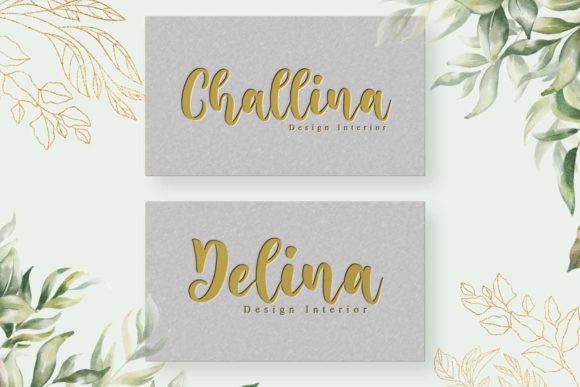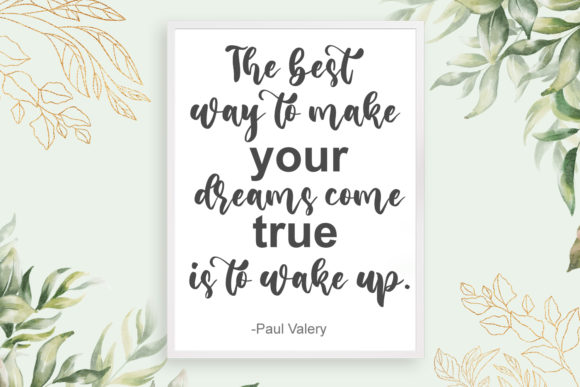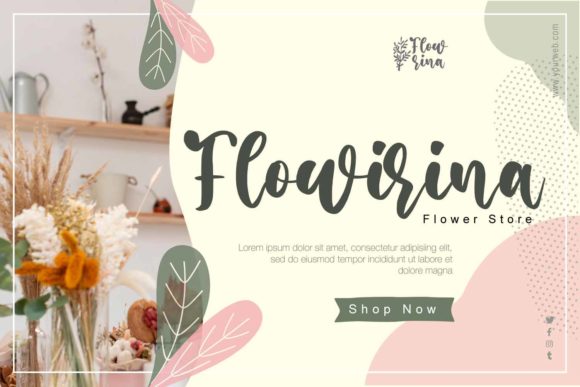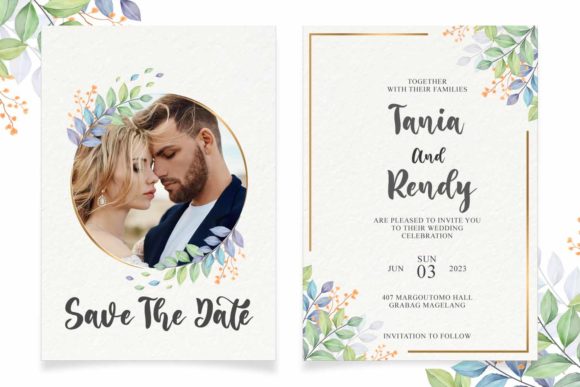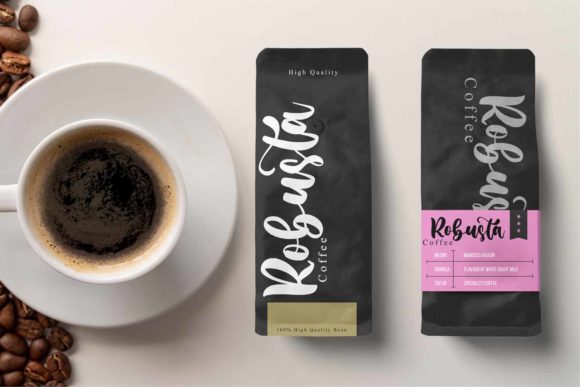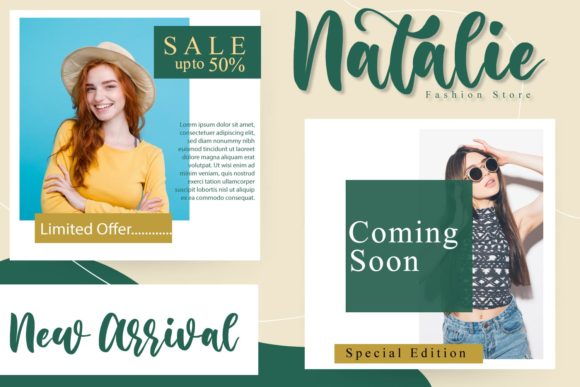
Introducing Challina Font: The Elegant and Timeless Choice for Your Design Projects
Are you tired of using the same old fonts for your design projects? Look no further than Challina Font, a beautiful and elegant handwritten font that is sure to take your designs to the next level. With its incredibly distinct and timeless style, Challina Font is perfect for designers and crafters who want to add a touch of sophistication and elegance to their work.
What is Challina Font?
Challina Font is a flowing handwritten font that is described by its elegant touch. It’s a font that exudes style and sophistication, making it perfect for a wide range of design projects, from wedding invitations and branding materials to social media graphics and more. With its unique and distinctive style, Challina Font is sure to make your designs stand out from the crowd.
Key Features of Challina Font
So, what makes Challina Font so special? Here are just a few of its key features:
- Elegant and sophisticated style: Challina Font has a timeless elegance that is perfect for designers who want to create sophisticated and stylish designs.
- Flowing handwritten script: The font’s flowing handwritten script gives it a personal and organic feel that’s perfect for a wide range of design projects.
- Incredibly distinct: Challina Font has a unique and distinctive style that is sure to make your designs stand out from the crowd.
- Perfect for a wide range of projects: Whether you’re working on a wedding invitation, a branding project, or a social media graphic, Challina Font is the perfect choice.
Why Choose Challina Font?
So, why should you choose Challina Font for your design projects? Here are just a few reasons:
- Add a touch of elegance to your designs: Challina Font is the perfect way to add a touch of sophistication and elegance to your designs.
- Stand out from the crowd: With its unique and distinctive style, Challina Font is sure to make your designs stand out from the crowd.
- Perfect for designers and crafters: Whether you’re a professional designer or a crafter, Challina Font is the perfect choice for anyone who wants to create beautiful and stylish designs.
Tips and Tricks for Using Challina Font
Here are a few tips and tricks for using Challina Font:
- Use it sparingly: Challina Font is a elegant and sophisticated font, so use it sparingly to add a touch of elegance to your designs.
- Pair it with other fonts: Challina Font pairs well with other fonts, so feel free to experiment with different font combinations.
- Experiment with different colors: Challina Font looks great in a wide range of colors, so experiment with different colors to find the one that works best for your design.
In conclusion, Challina Font is a beautiful and elegant handwritten font that is perfect for designers and crafters who want to add a touch of sophistication and elegance to their work. With its incredibly distinct and timeless style, Challina Font is sure to make your designs stand out from the crowd. So why not give it a try and see the difference it can make in your designs?